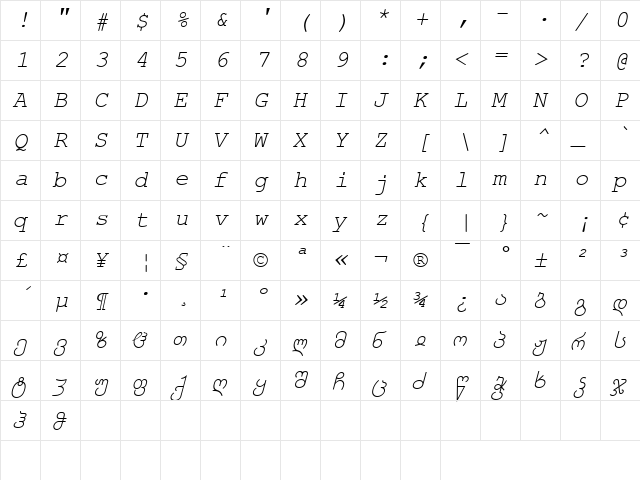
Design Context for Geo_Courier Typeface
Geo_Courier uses fixed-width spacing throughout, giving it the structured, systematic character associated with coding environments and technical documentation. The dynamic lean of this cut emphasises speed and emphasis in any layout.